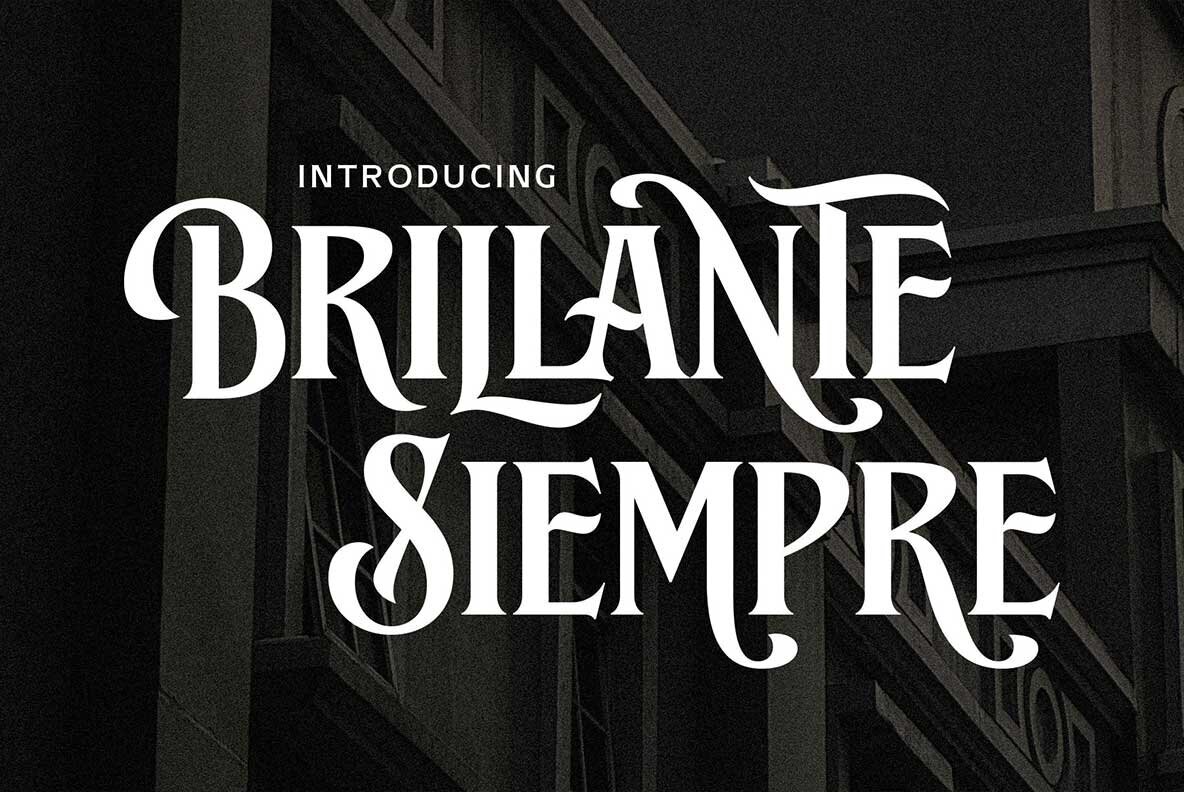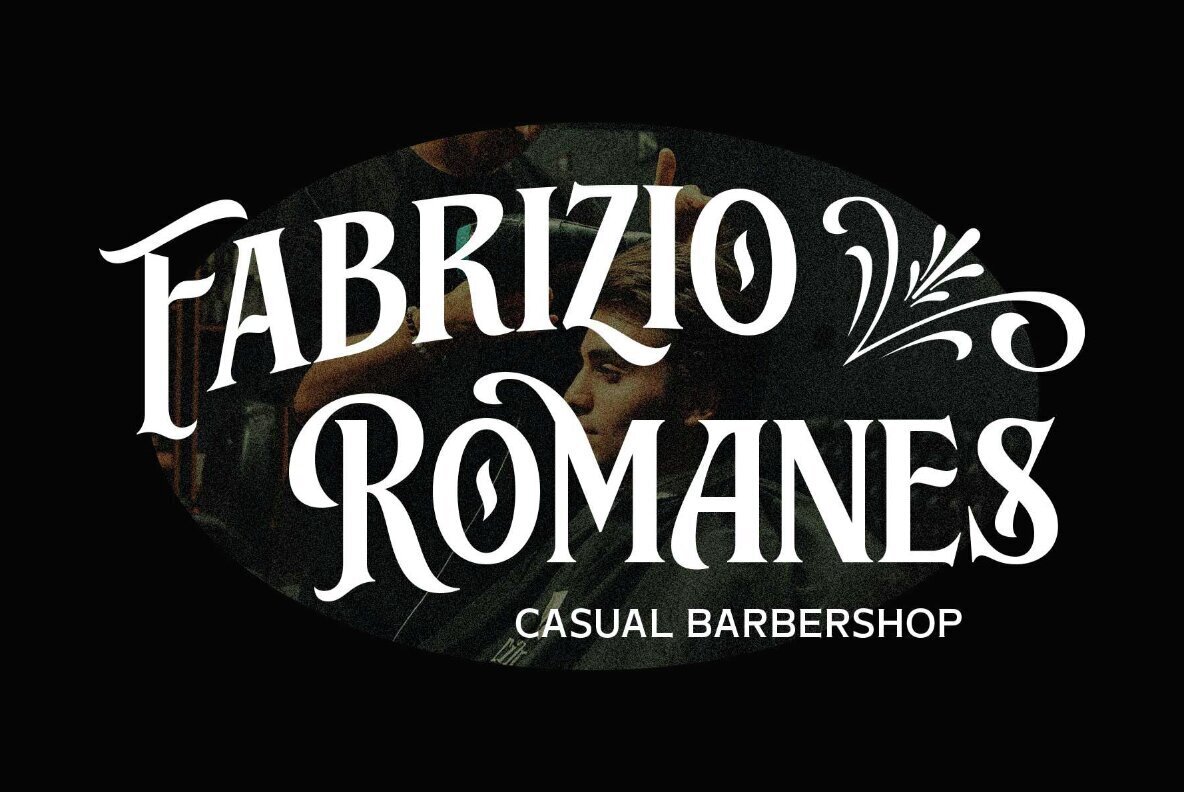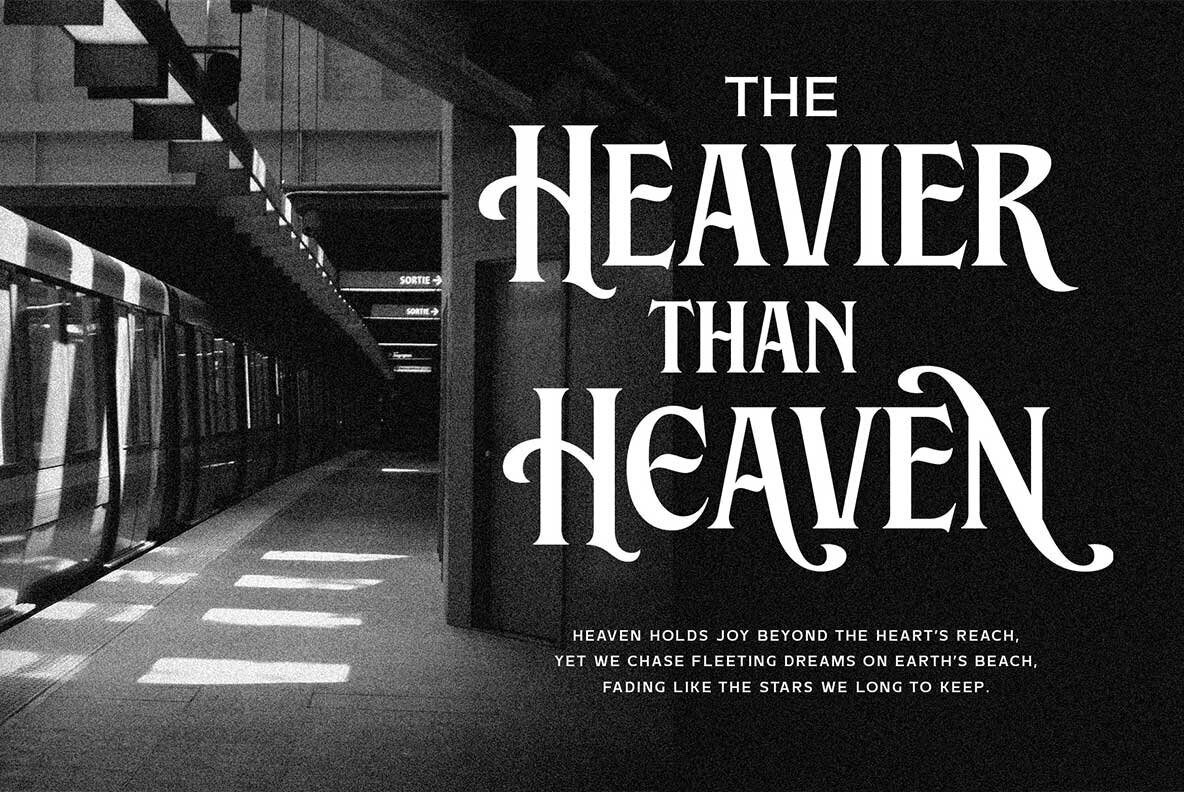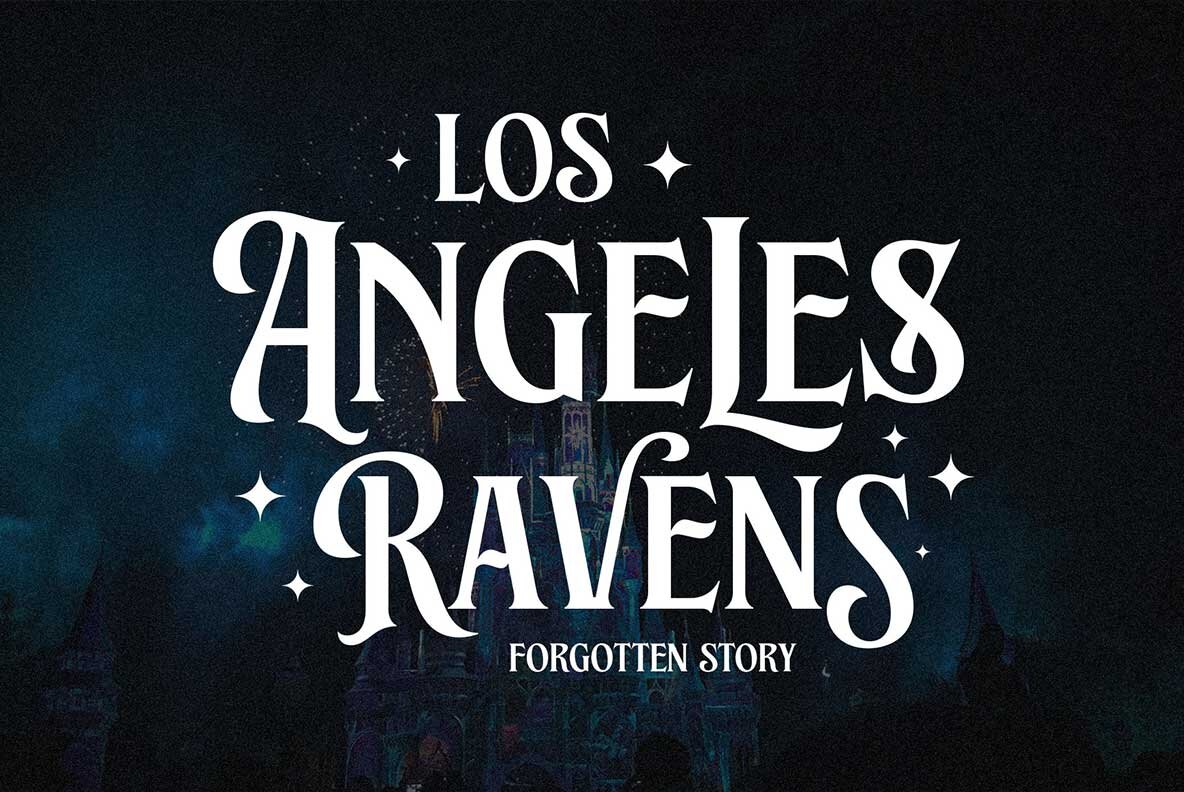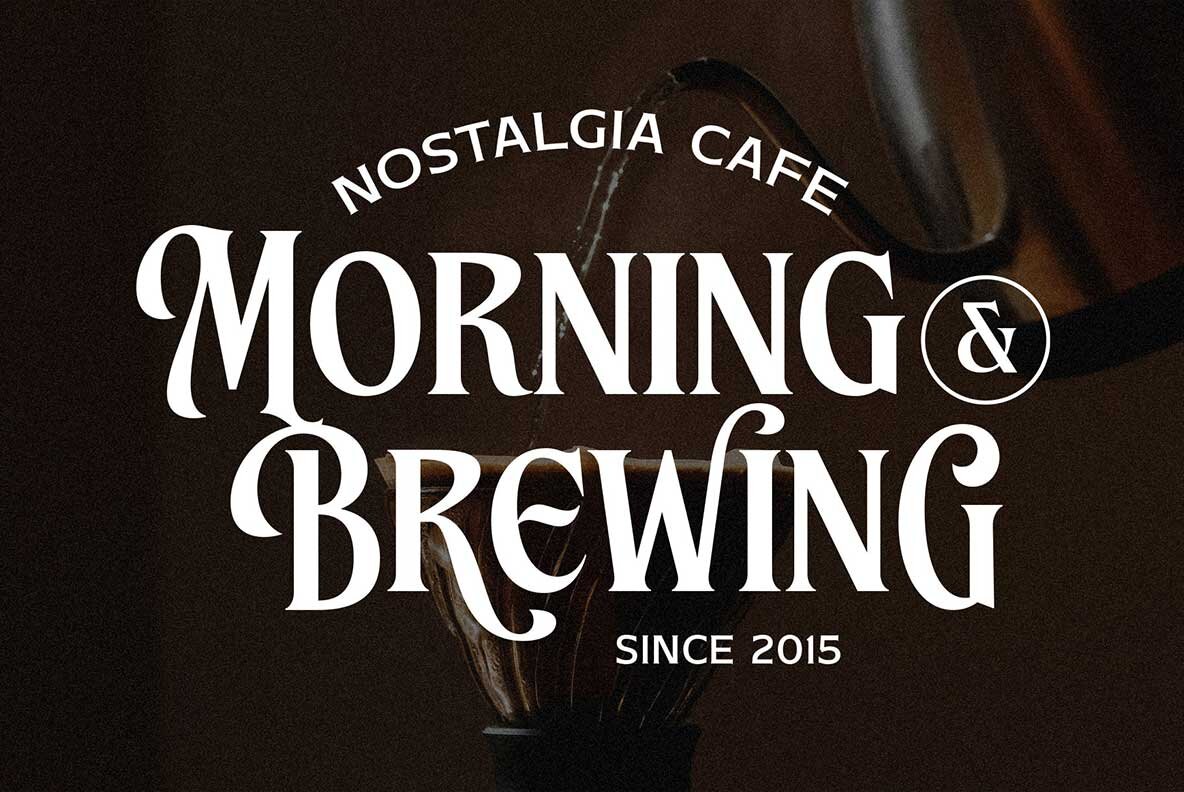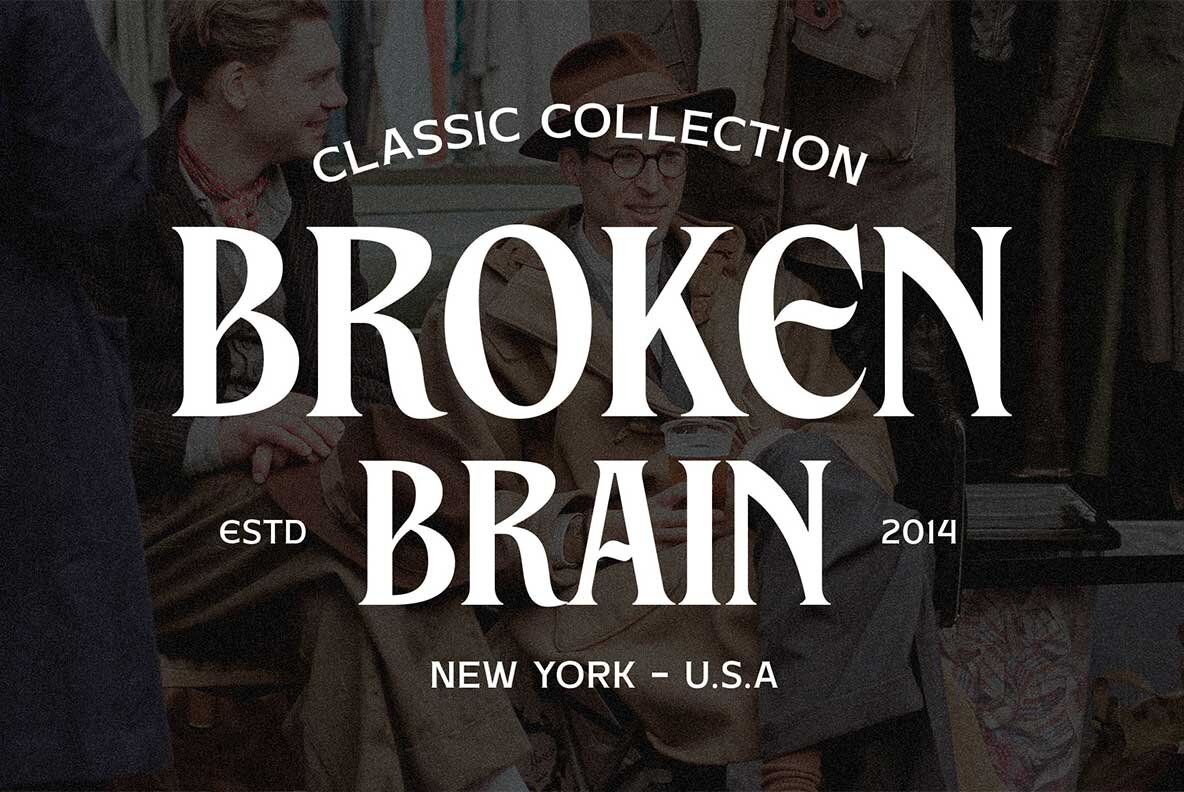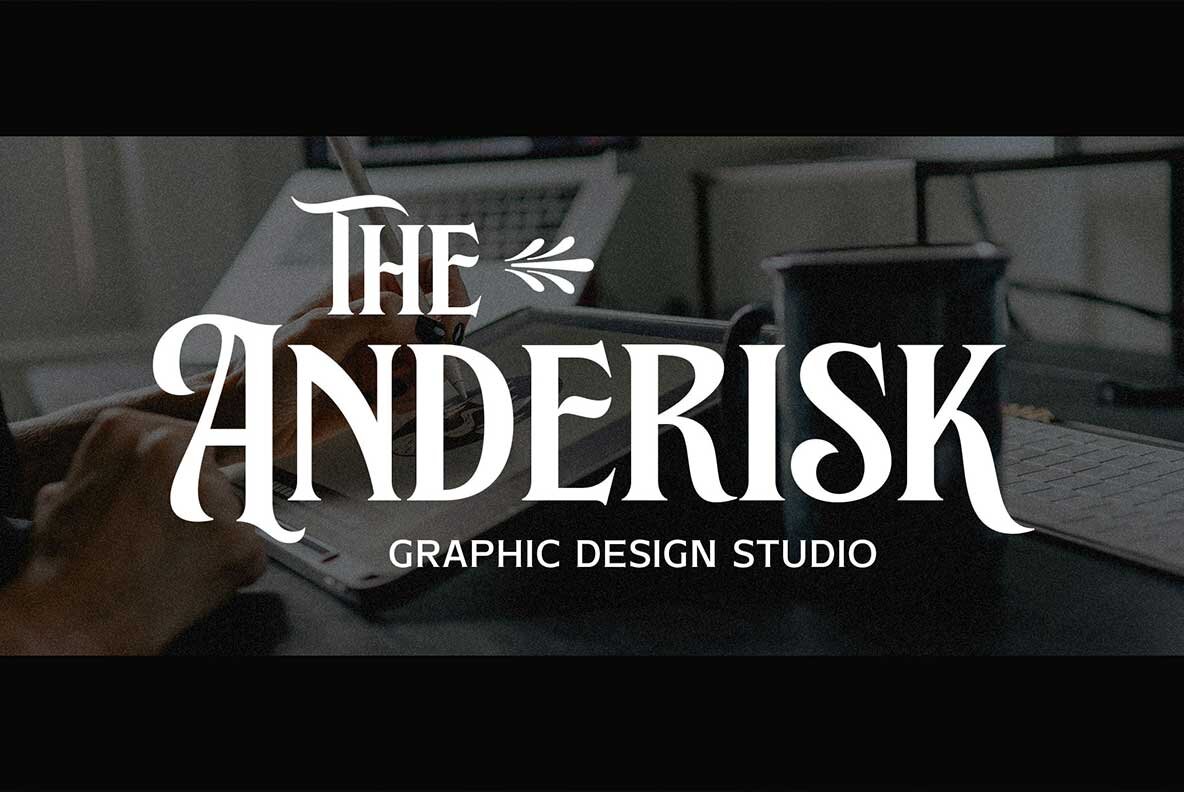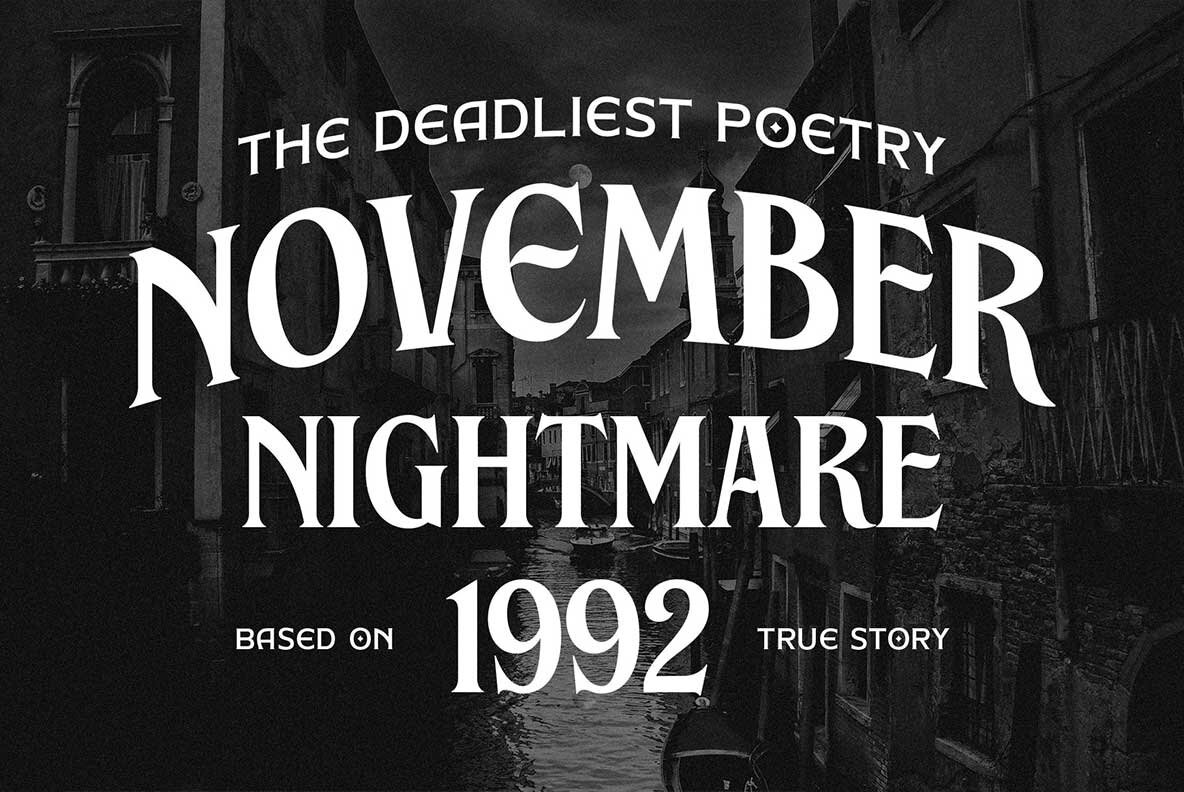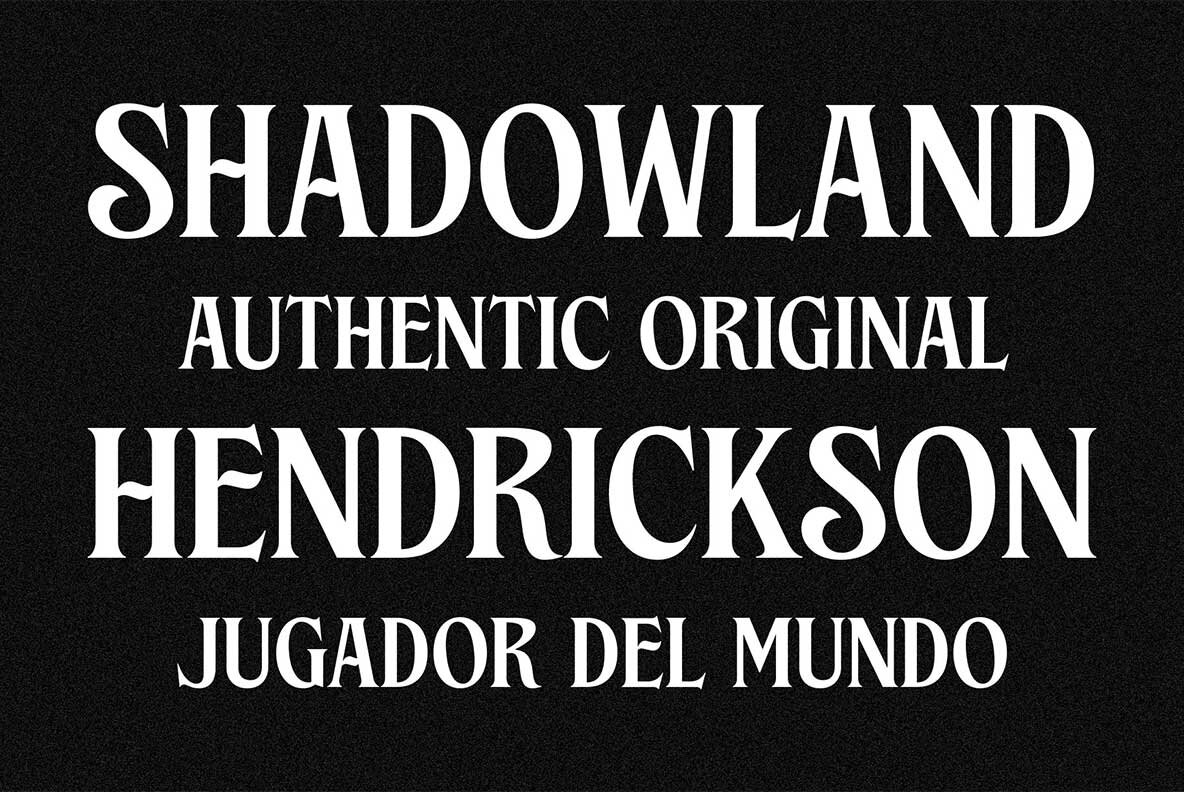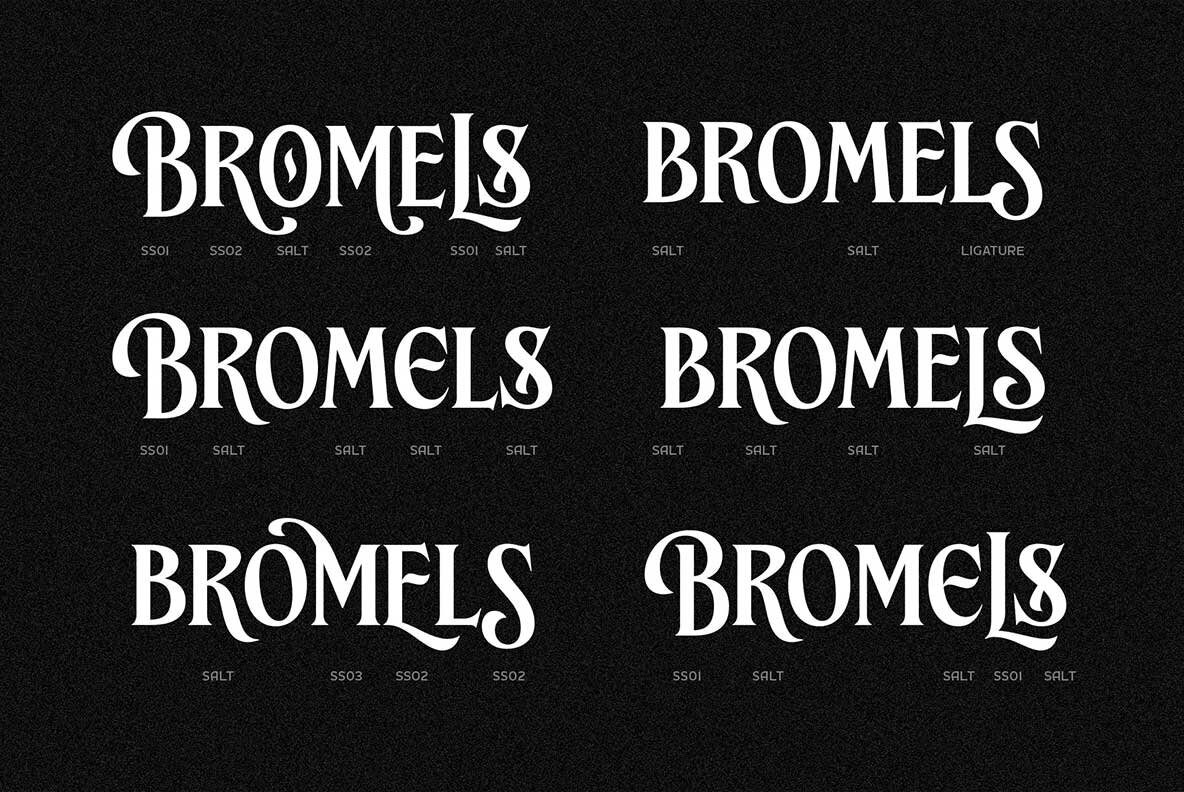
Brillante Siempre Font
Brillante Siempre Regular
Brillante Siempre is a fancy serif font that combines classic elegance with a touch of modern sophistication. Designed with exquisite ornamental shapes, it offers a soft, romantic, and timeless aesthetic that enhances any project. Whether you're crafting logos, headlines, posters, magazines, labels, or invitations, this font delivers a distinct charm that captivates the eye. With robust OpenType features, Brillante Siempre allows you to explore a variety of styles and effortlessly personalize your work. Ideal for brands, signage, titling, or publications, it infuses your designs with a refined and unforgettable touch. Essential for anyone looking to imbue their projects with a touch of timeless beauty and bold character.Brillante Siempre: A Timeless Fancy Serif Font